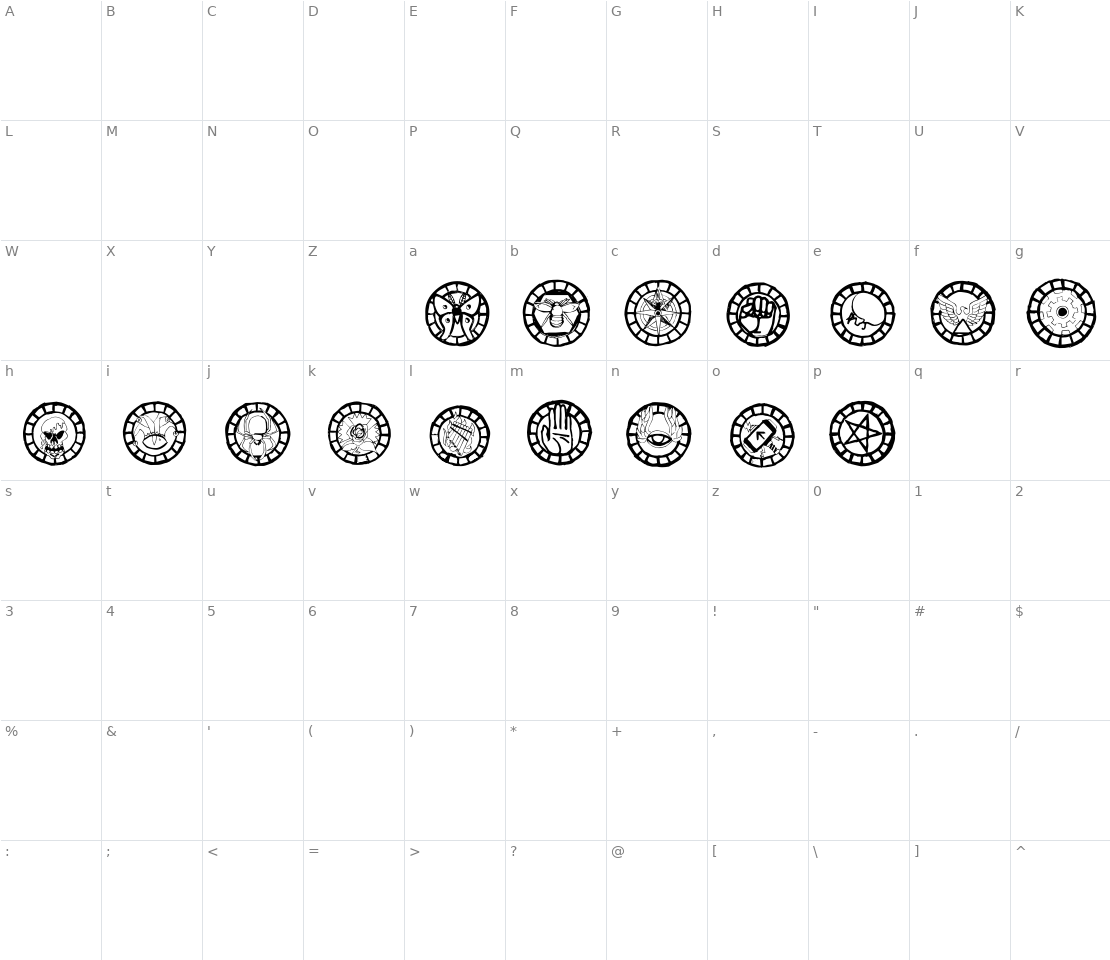
WW Changeling Bats
WW Changeling Bats is a symbol font from White Wolf built around circular, medallion-style glyphs with a mystical, ornamental quality. Each character feels like an arcane sigil or fantasy icon, drawn with clean outlines that read well at a range of sizes. Designed with the World of Darkness tabletop RPG aesthetic in mind, it's a natural pick for fantasy-themed layout elements, chapter dividers, and decorative accents in gaming or occult-adjacent design work.